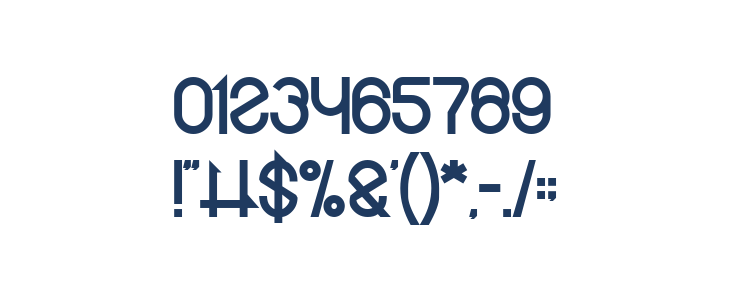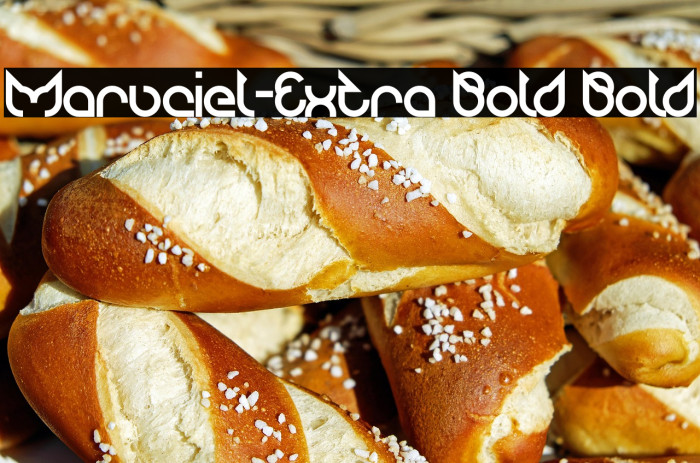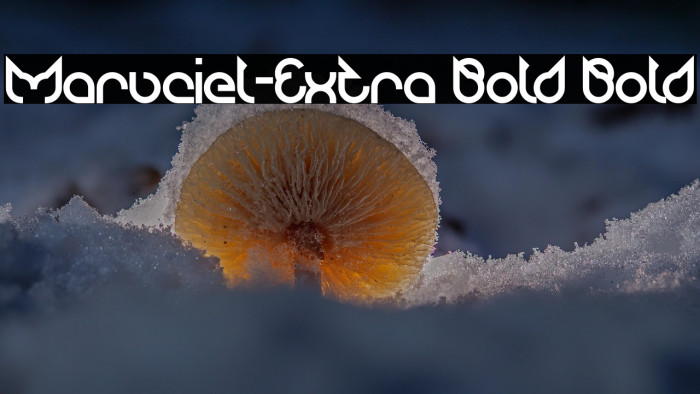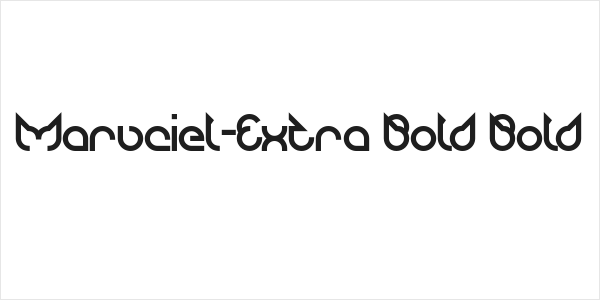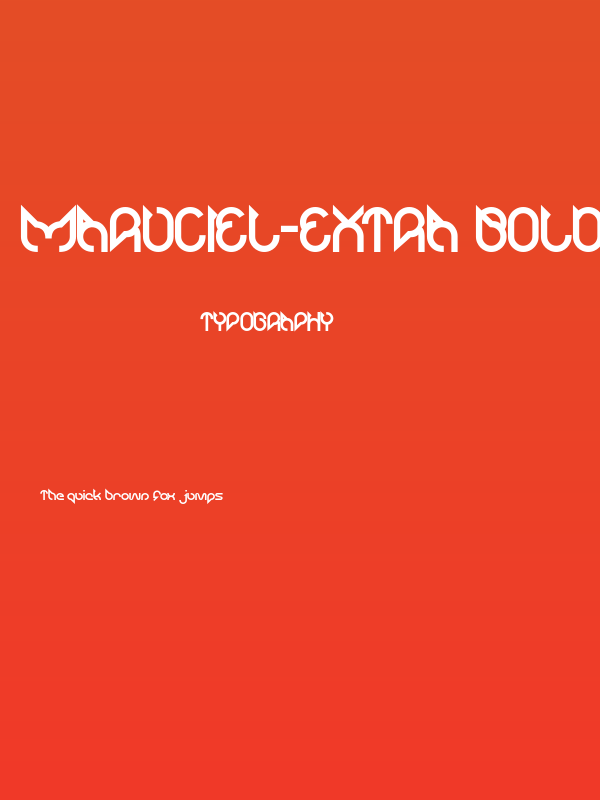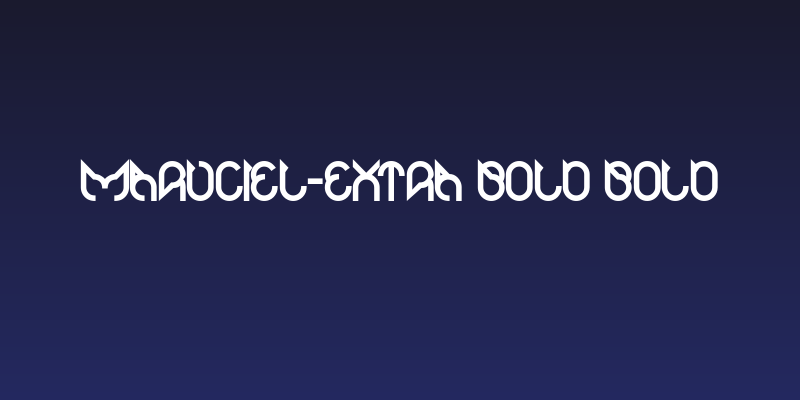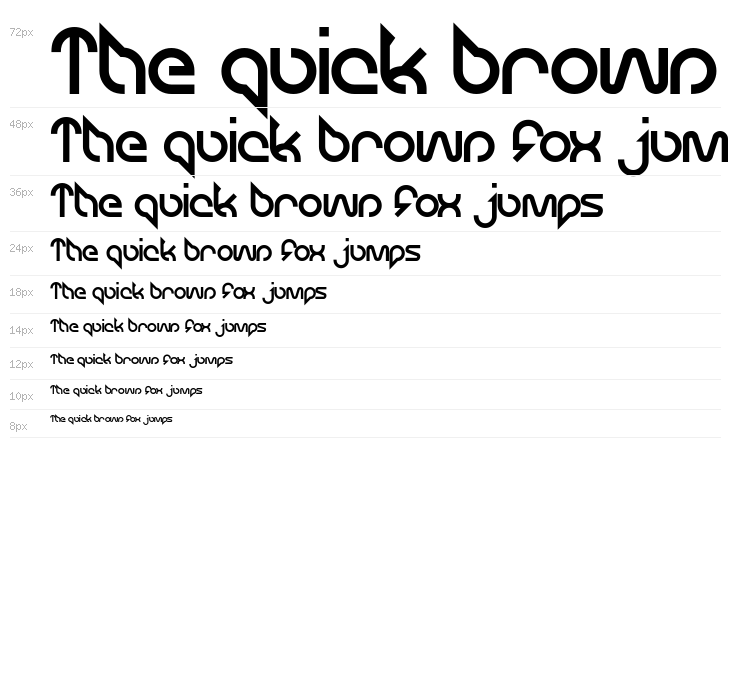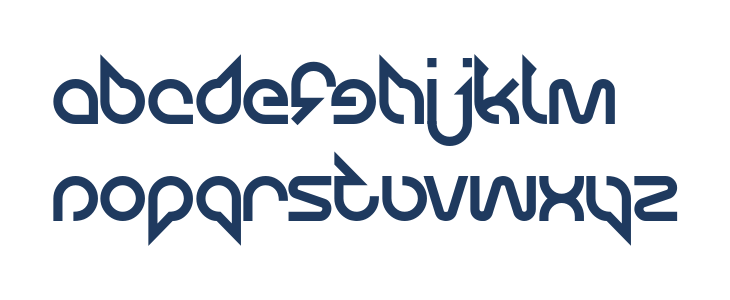
Maruciel-Extra Bold Bold Font
Maruciel-Extra Bold Bold Description
This font features a bold and striking design with a modern, geometric aesthetic. The characters are crafted with sharp angles and clean lines, giving them a futuristic and edgy appearance. The uppercase and lowercase letters maintain a consistent style, with unique cutouts and shapes that add a distinctive flair. The numerals and special characters follow the same design principles, ensuring a cohesive look across all text. This font's boldness and unique style make it ideal for projects that require a strong visual impact.